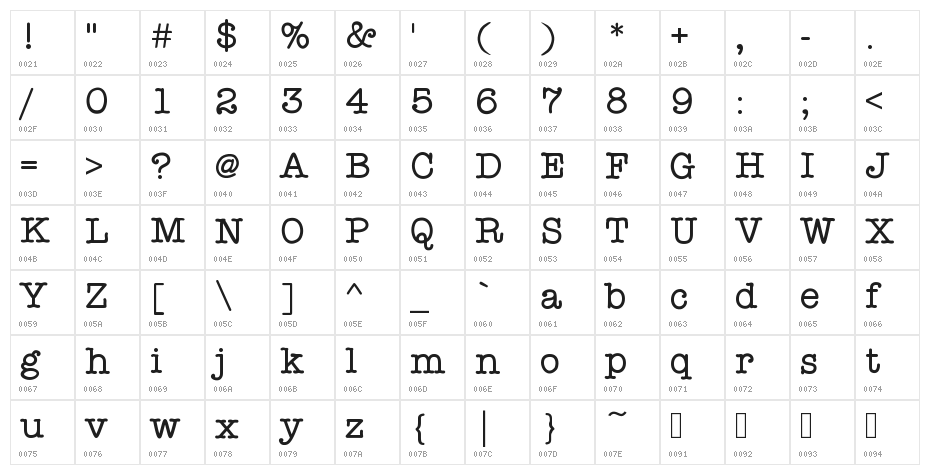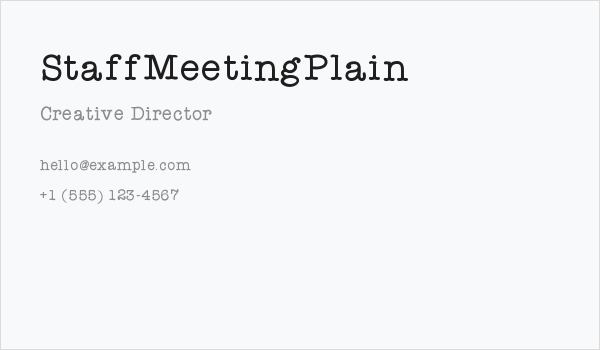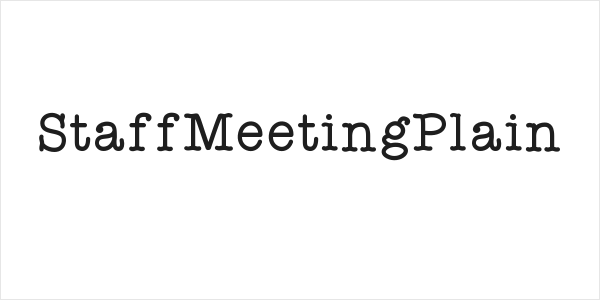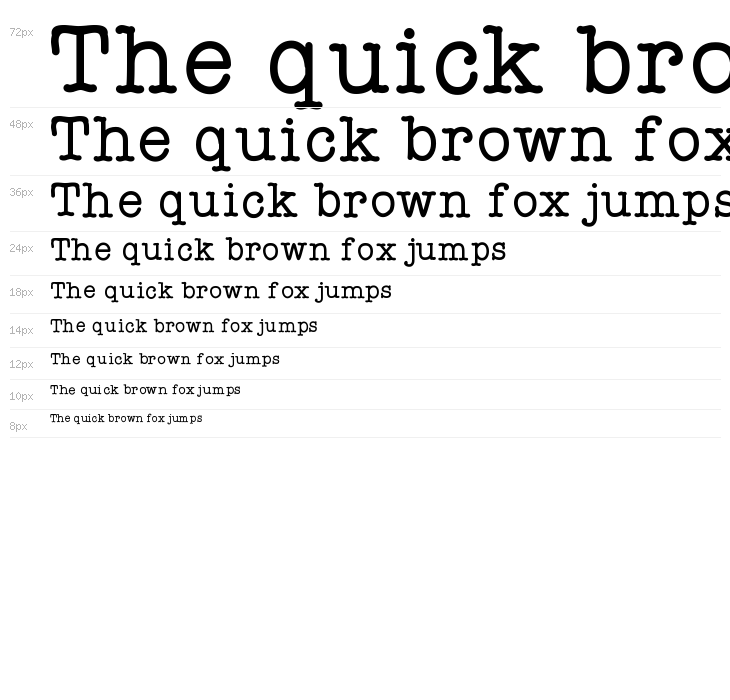
StaffMeetingPlain Font
StaffMeetingPlain Description
This font features a classic typewriter style with a monospaced design, where each character occupies the same amount of horizontal space. The letters have a distinct, mechanical appearance with rounded edges and consistent stroke widths, giving it a vintage and utilitarian feel. The uppercase and lowercase letters maintain a uniform height, enhancing readability and creating a structured look. The numerals and special characters follow the same monospaced pattern, ensuring alignment and balance across different text elements. This font is ideal for projects that require a retro or industrial aesthetic, offering a sense of nostalgia and functionality.
| Use Case | Coding, Technical documents, Retro designs |
| Proposed Projects | Ideal for coding environments, retro-themed designs, typewriter art, and technical documents. |